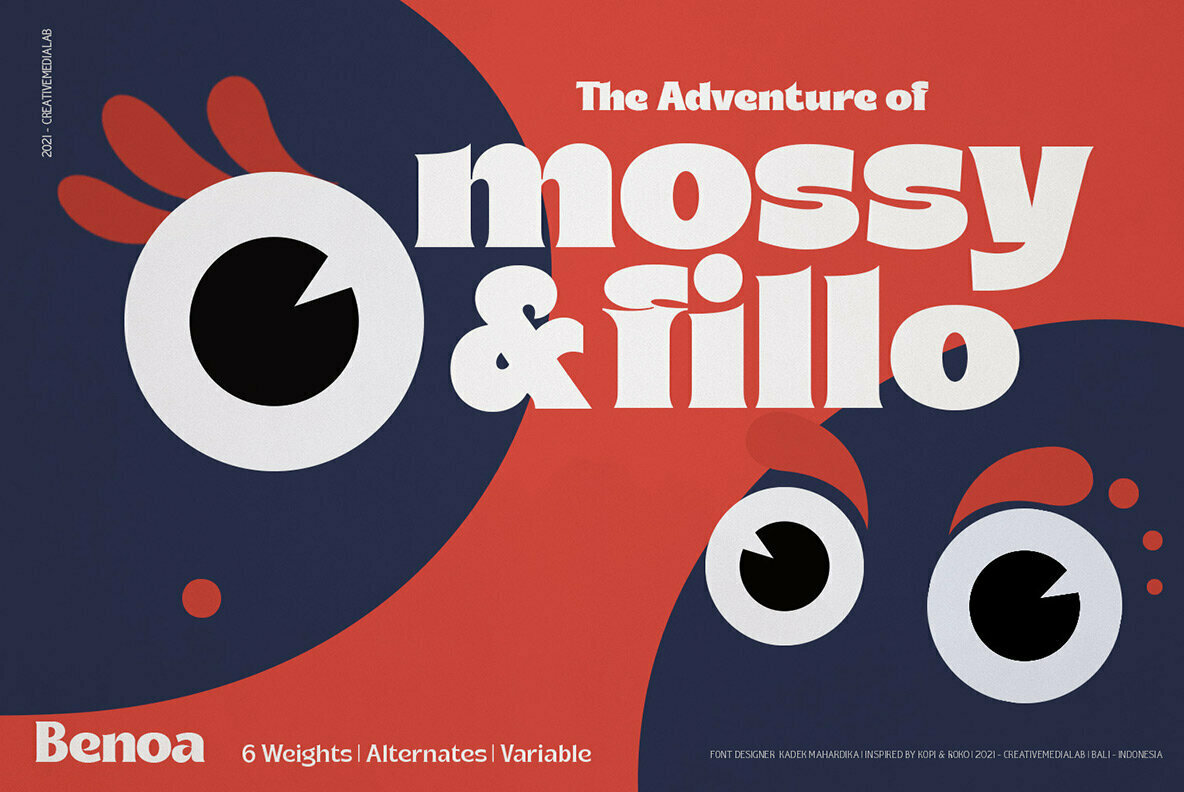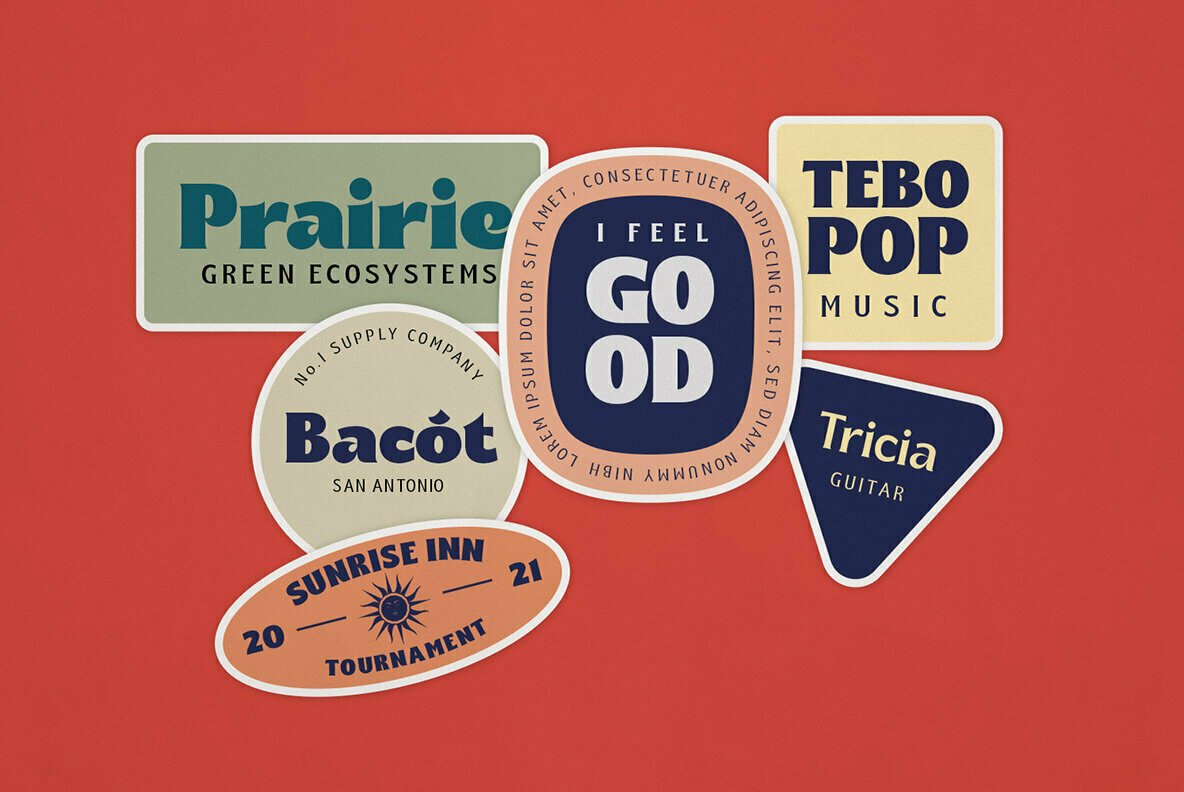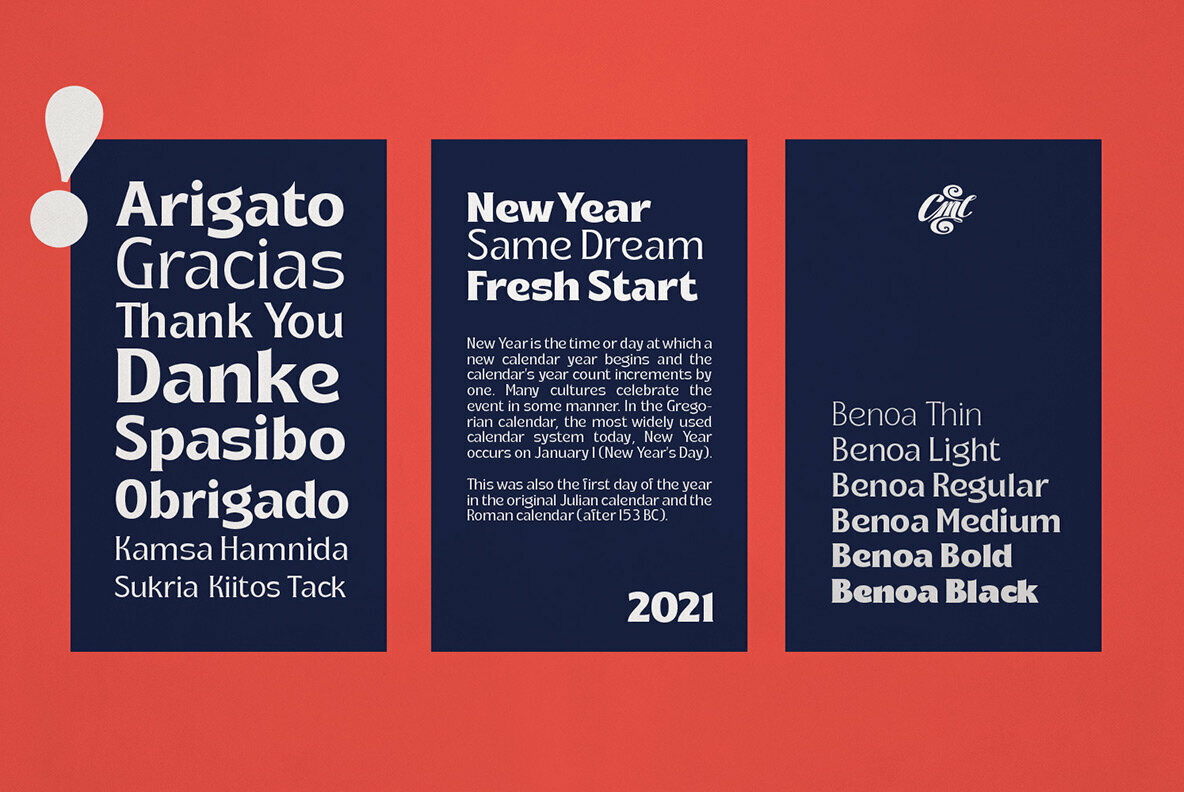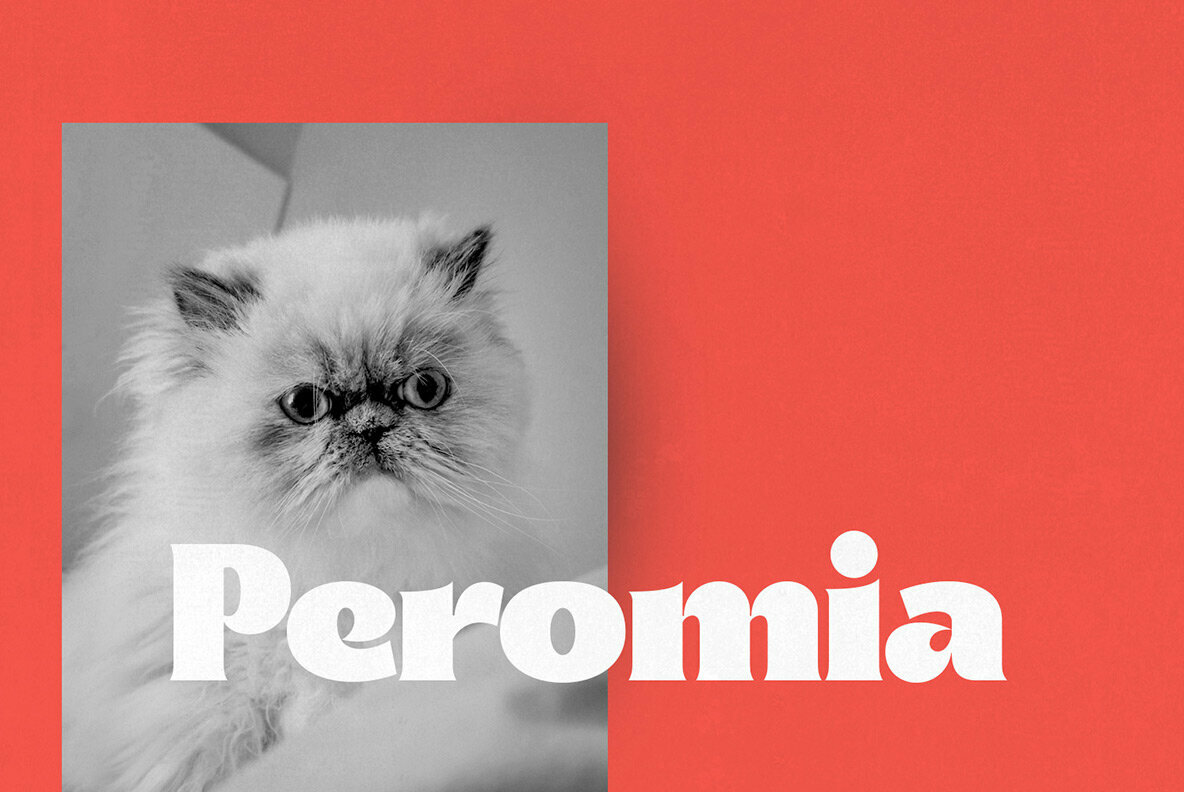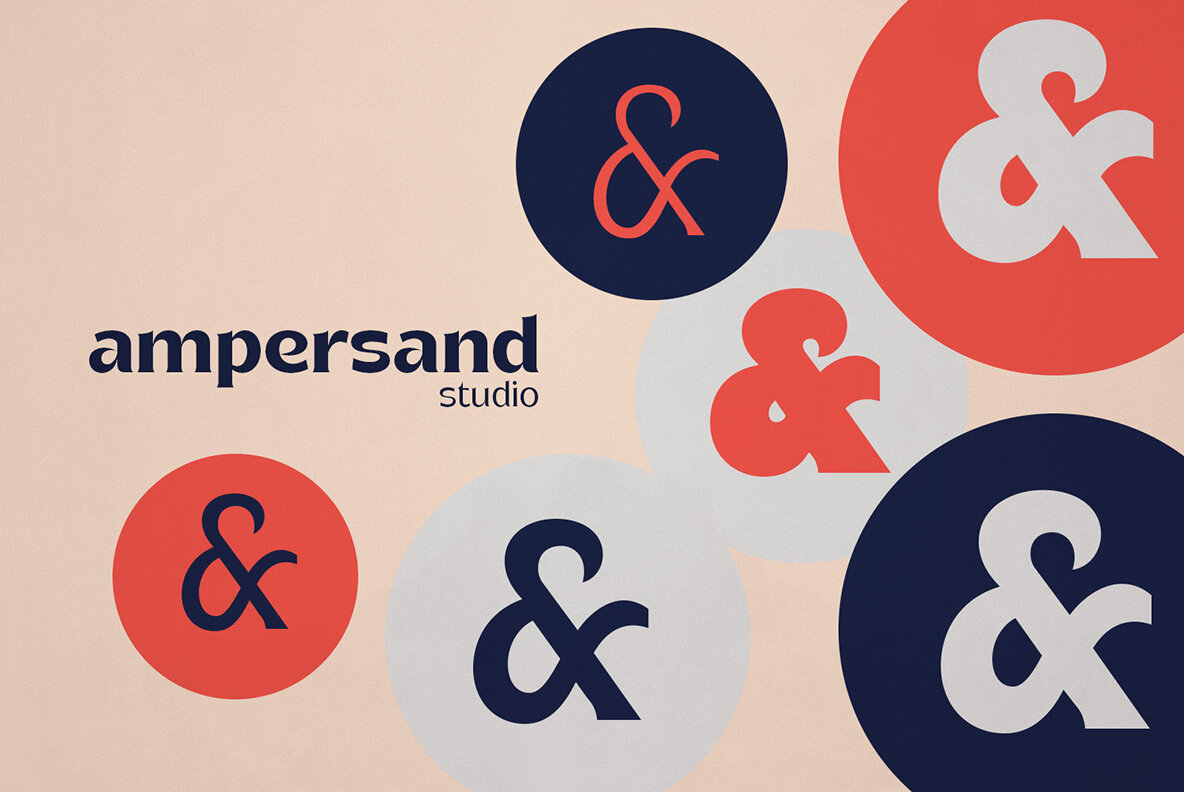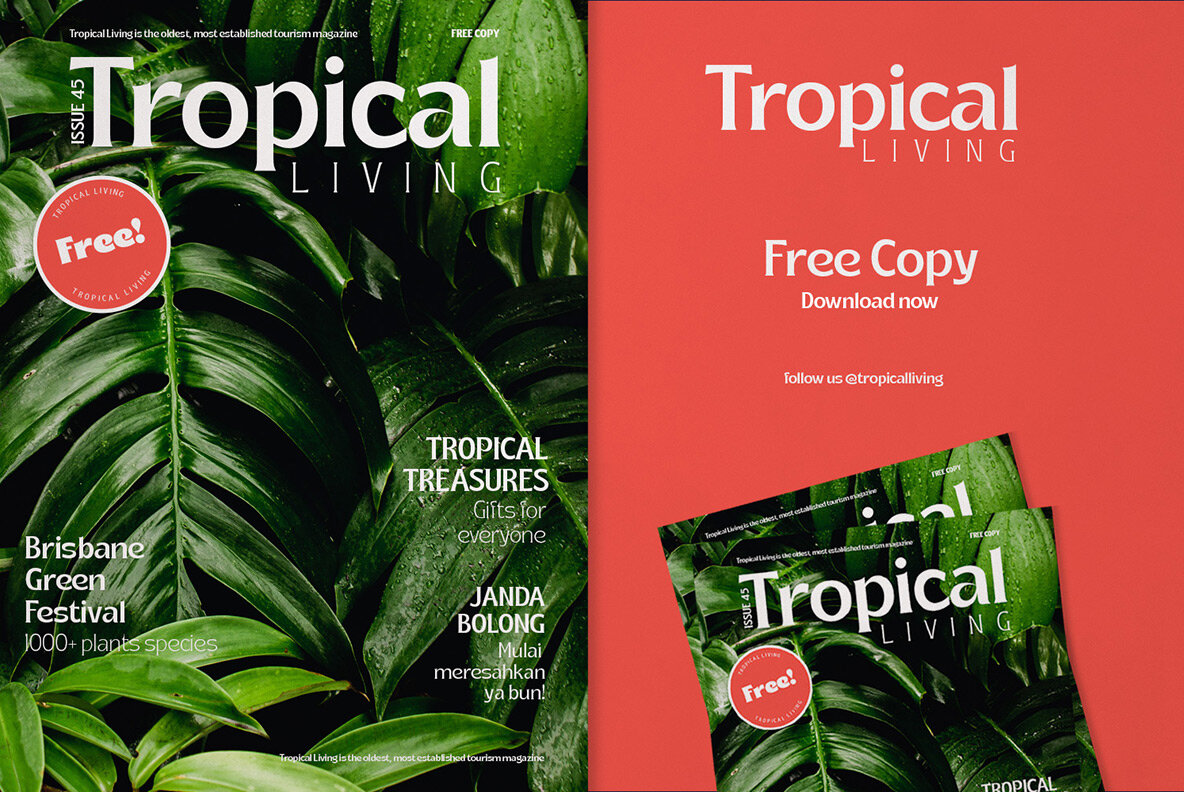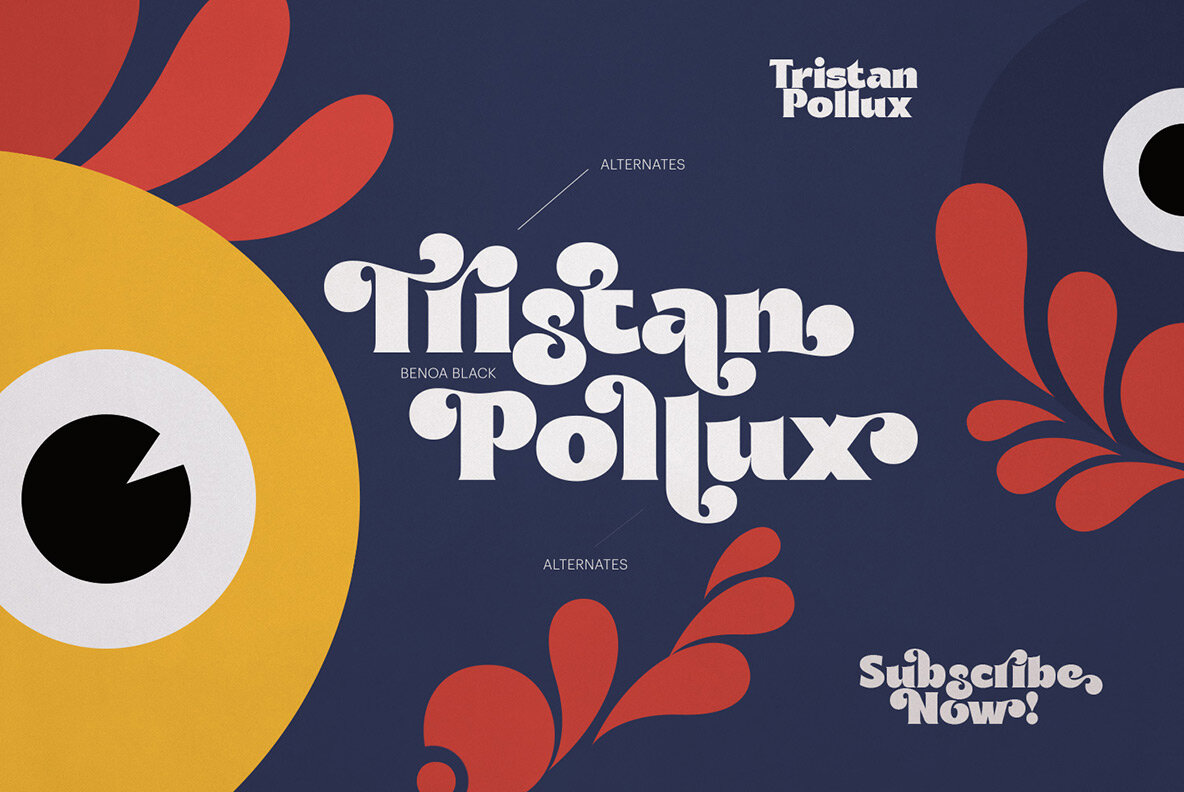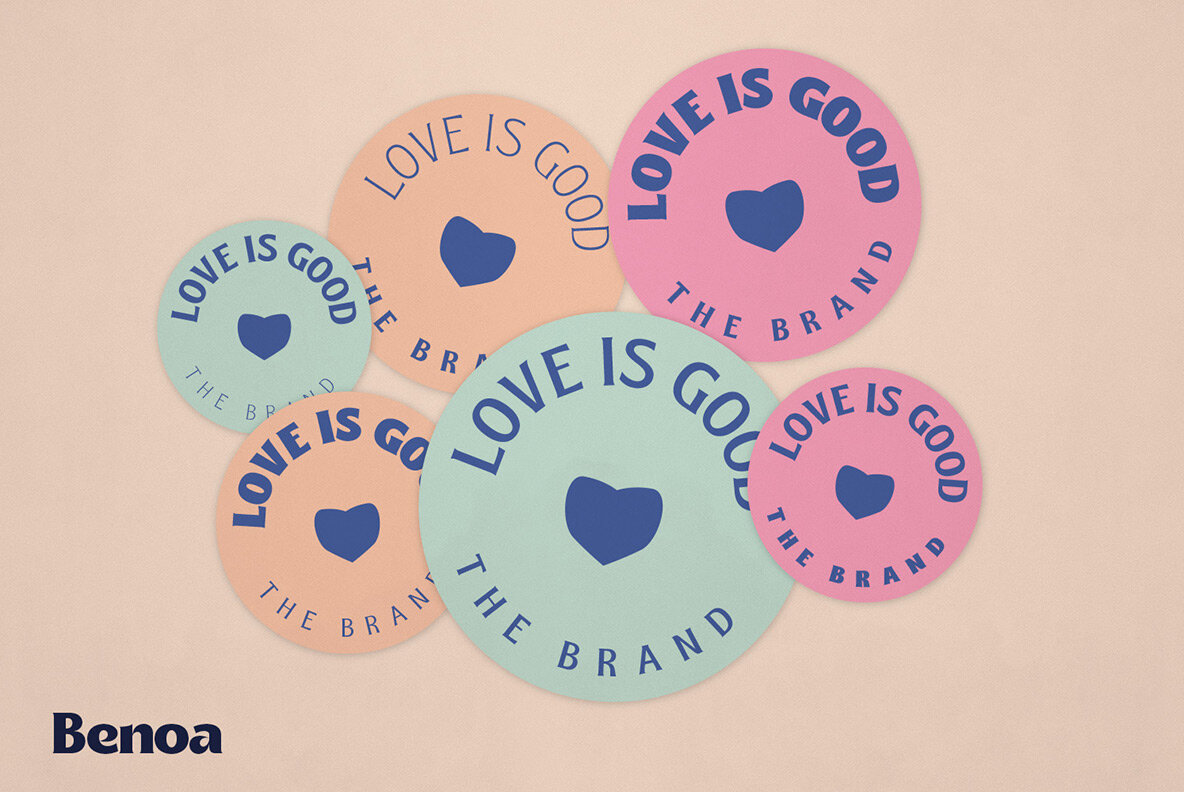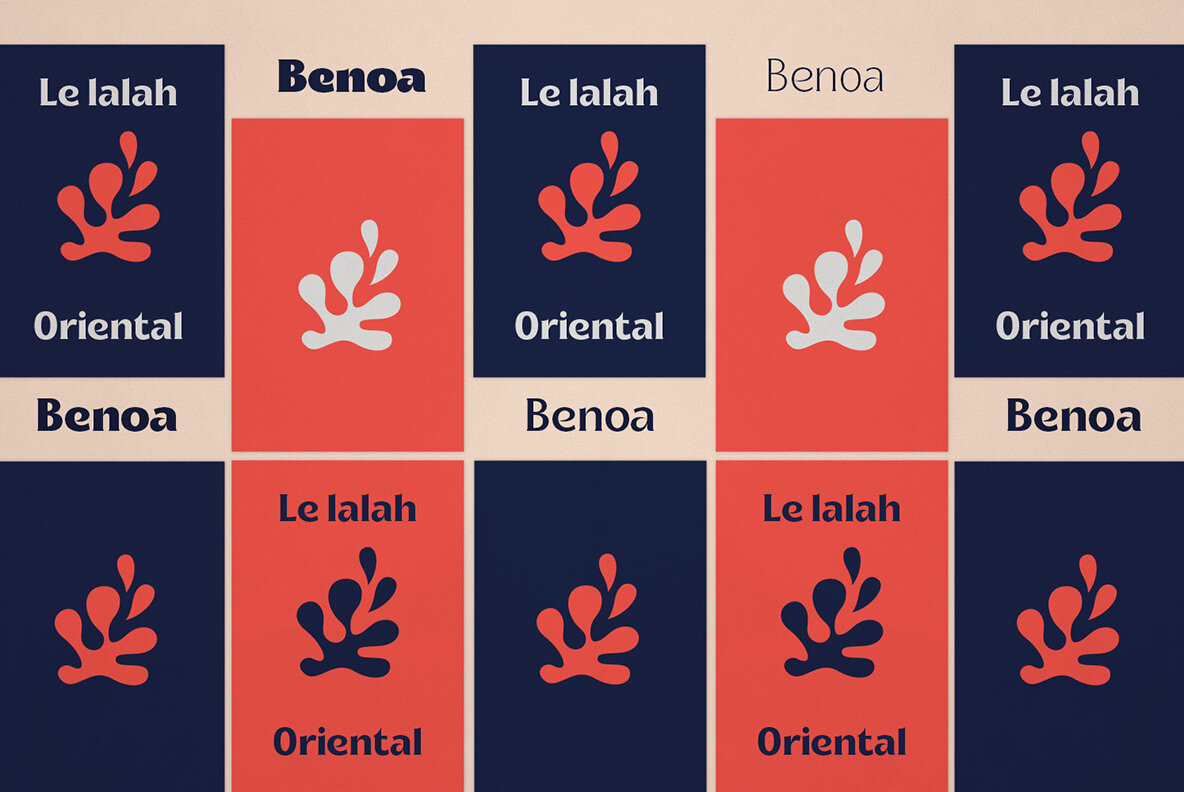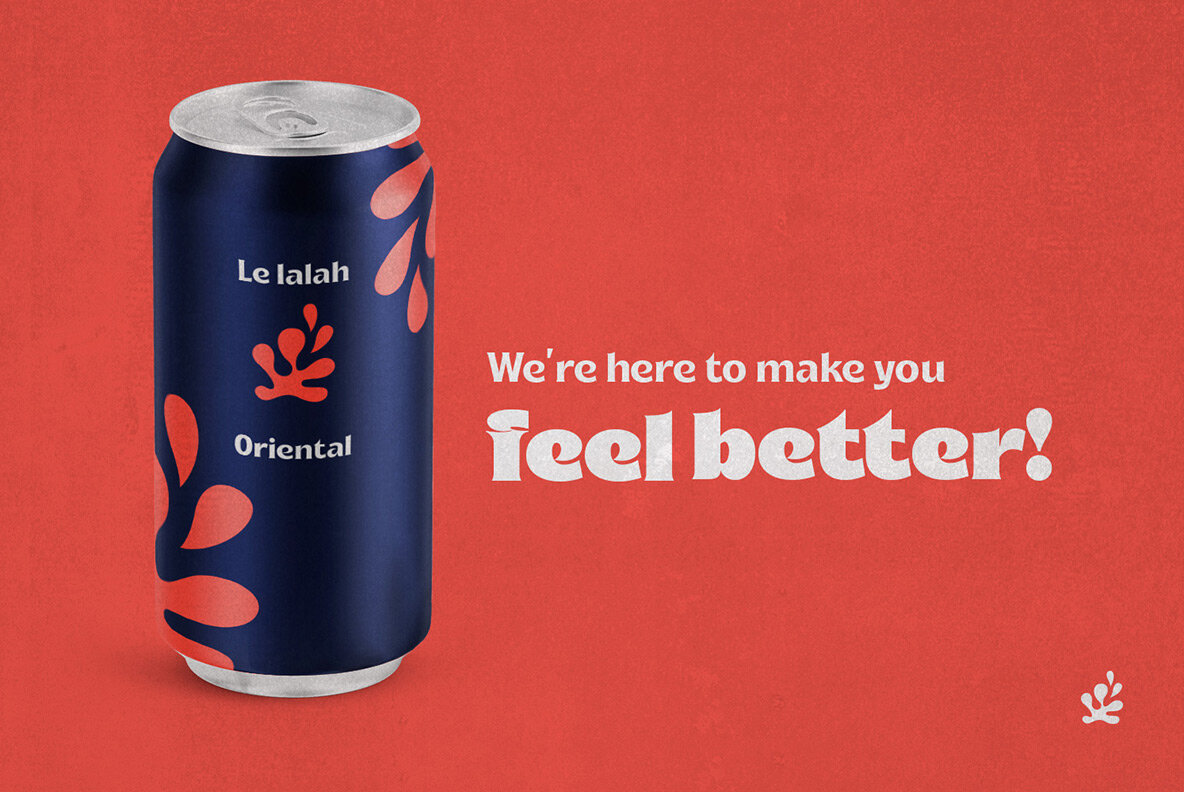
Benoa is a versatile font family for your design, consists of 6 weights from thin to black with dozens of alternates. Benoa works well with any style of design concept, from branding to a nice bold modern look!
Benoa also available in Variable format, multilingual support, numbers, and currency symbols, and dozens of alternates.